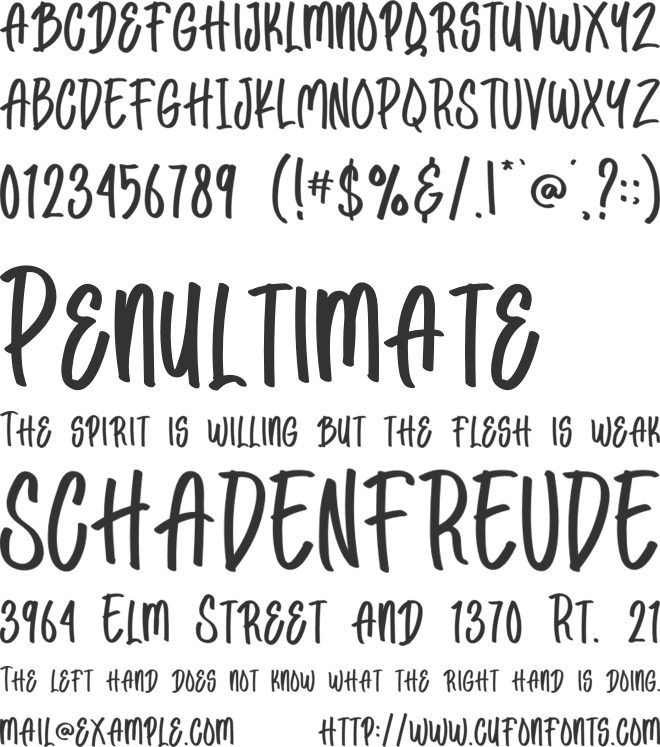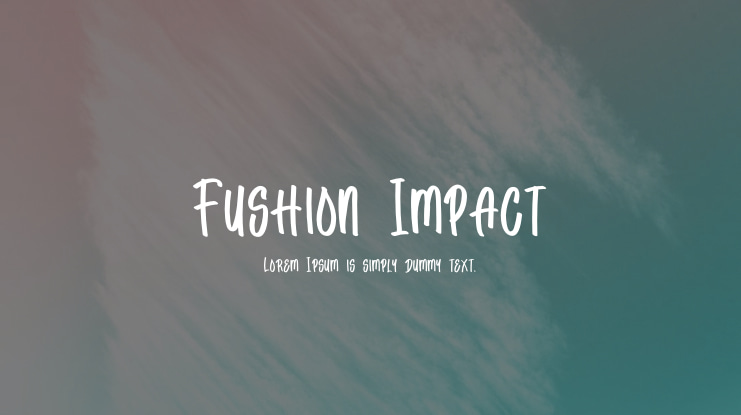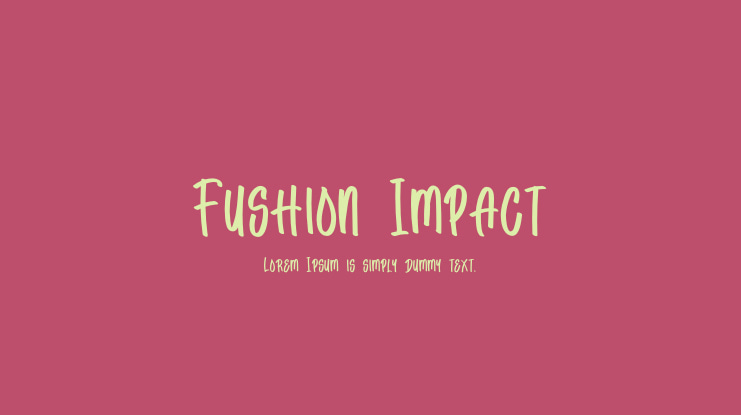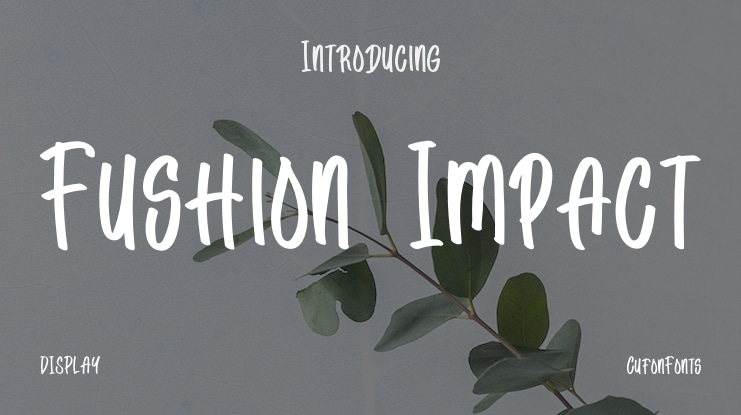
Fushion Impact Font
Fusion Impact is a dynamic, modern graffiti-inspired font that captures the essence of urban street art. Its bold and edgy design combines the raw energy of graffiti with a contemporary flair, making it perfect for projects that demand a striking and rebellious aesthetic.